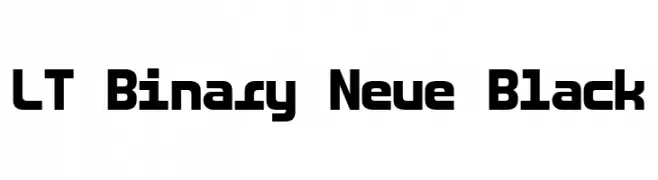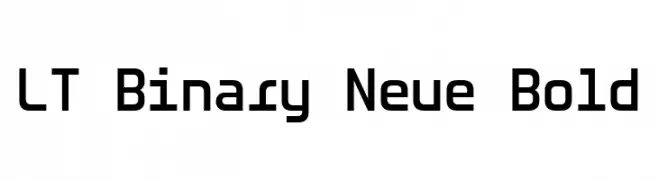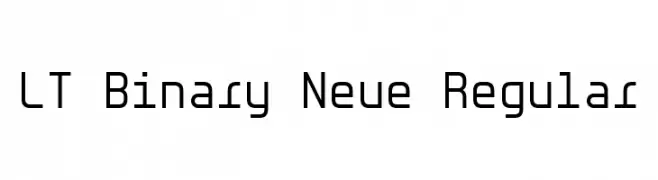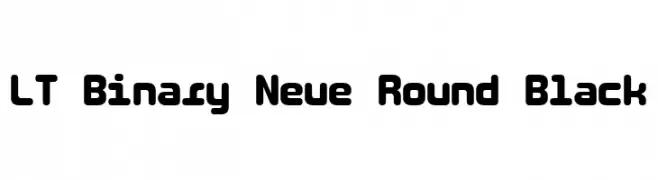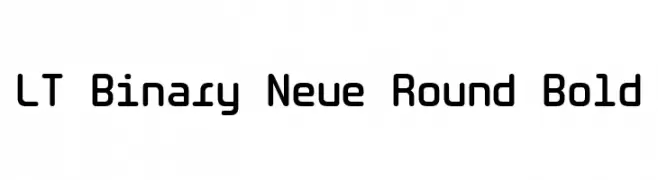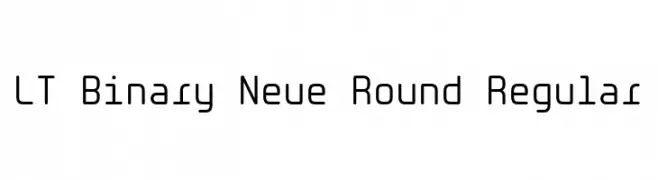
A modern, rounded font with a clean and geometric design.
A bold, rounded font with a modern and playful style.
A bold, geometric font with a modern, monospaced style.
A bold, geometric font with a modern, digital aesthetic.
A modern, geometric font with uniform stroke widths and a monospaced appearance.
A bold, rounded, and modern font with smooth curves and consistent stroke thickness.
A bold, playful font with a cartoonish style and rounded characters.